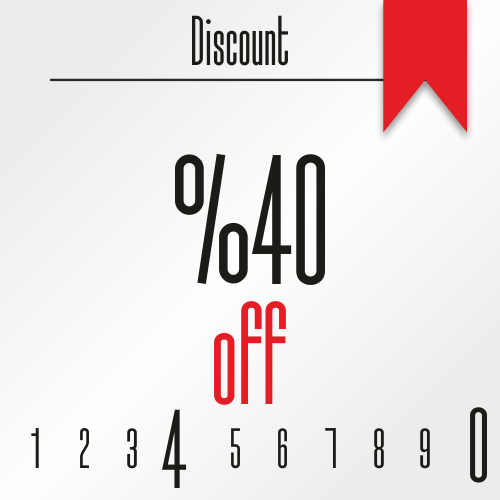
Typo Longest; Extreme Narrow Geometry with Smooth Character
Typo Longest is a modern sans-serif typeface family designed by Mehmet Abacı and published by StudioTypo. Built with an extra-condensed structure, Typo Longest maximizes vertical space while maintaining elegant readability and balanced proportions.
Despite its ultra-narrow form, the typeface preserves soft rounded geometry at the corners, preventing it from feeling rigid or mechanical. This thoughtful balance between compression and curvature gives Typo Longest a distinctive contemporary voice — strong, efficient, and visually refined.
Complete Weight System for Dynamic Hierarchy
Typo Longest offers a full range of coordinated weights, each with matching italic styles:
Thin & Thin Italic
Light & Light Italic
Regular & Italic
Bold & Bold Italic
This extended family allows designers to create powerful typographic systems, from subtle, elegant compositions to striking headline statements.
Design Highlights
▪ Extra-condensed structure; ideal for space-saving layouts
▪ Rounded geometric corners; softens the narrow silhouette
▪ Clean sans-serif construction; modern and versatile
▪ Strong vertical rhythm; perfect for impactful headlines
▪ Balanced legibility; remains readable even at tighter settings
Perfect For
✔ Posters & editorial headlines
✔ Branding with a strong vertical presence
✔ Packaging & label design
✔ Web banners and hero typography
✔ Urban, fashion, and tech identities
Typo Longest is designed for projects that demand maximum impact within minimal horizontal space. It delivers height, strength, and modern elegance, all within a refined geometric framework.